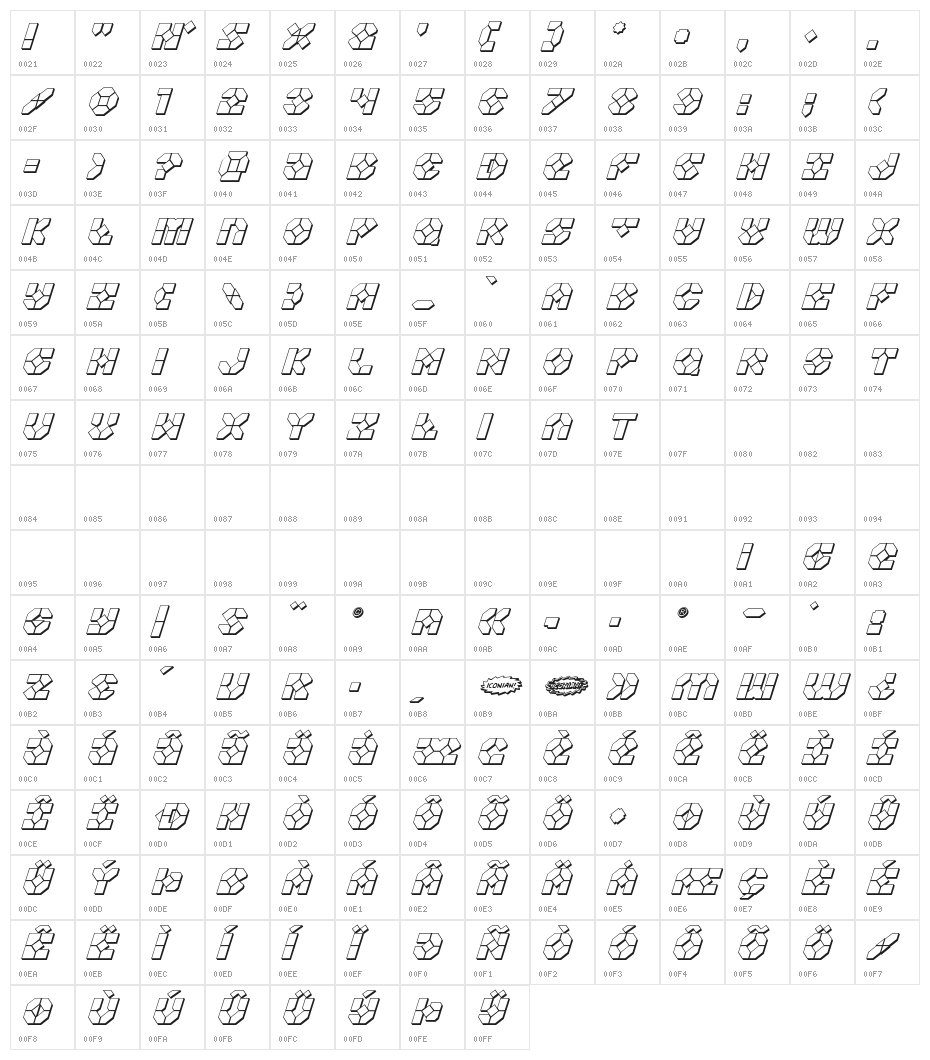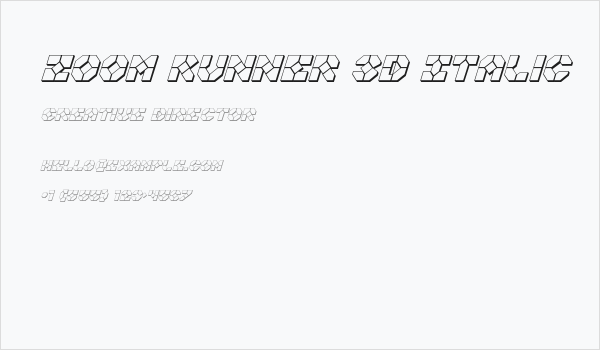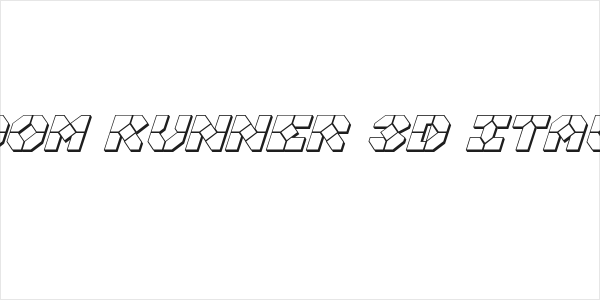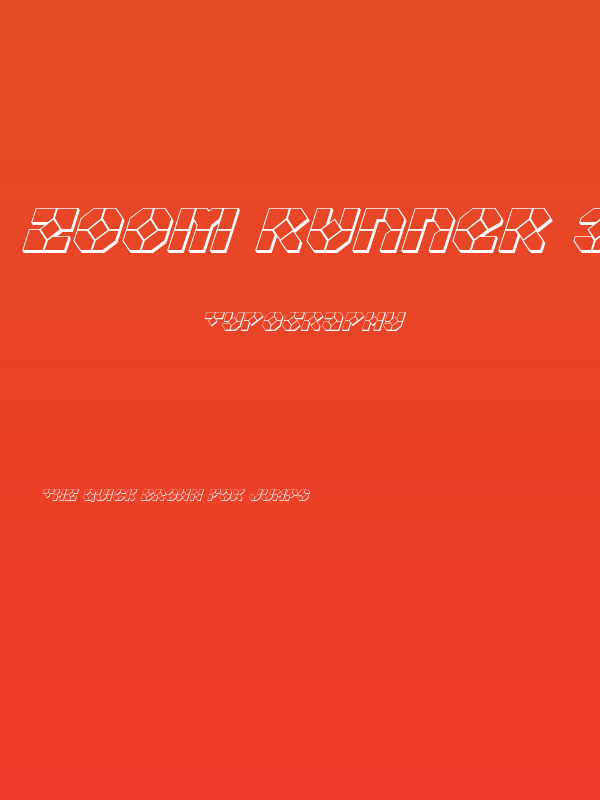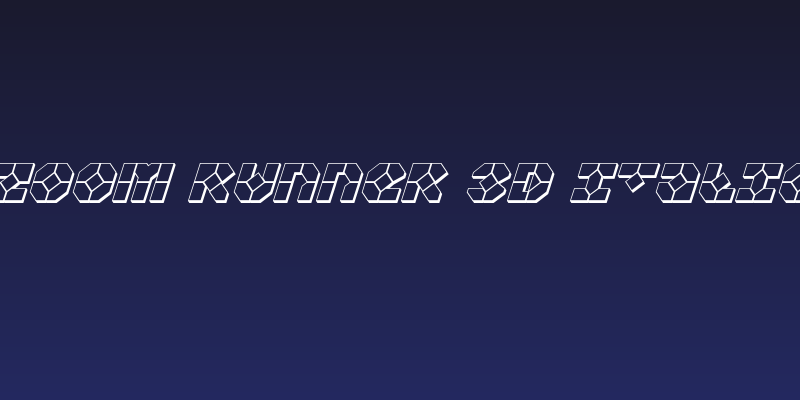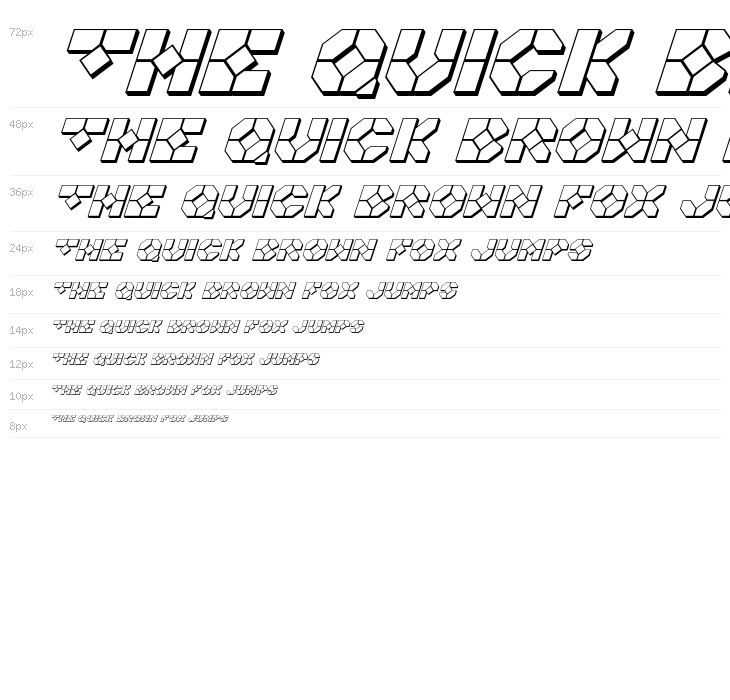
Zoom Runner 3D Italic Font
Zoom Runner 3D Italic Description
This font features a bold, three-dimensional geometric design that gives each character a dynamic and futuristic appearance. The letters are constructed with a blocky, angular style, creating a sense of depth and movement. The italic slant adds to the sense of speed and modernity, making it ideal for projects that require a cutting-edge look. The uppercase and lowercase letters maintain a consistent style, while the numbers and special characters are equally bold and striking. This font is perfect for eye-catching headlines, logos, and any design that aims to stand out with a modern, tech-inspired aesthetic.
| Proposed Projects | Ideal for futuristic branding, tech event posters, video game titles, and dynamic logo designs. |